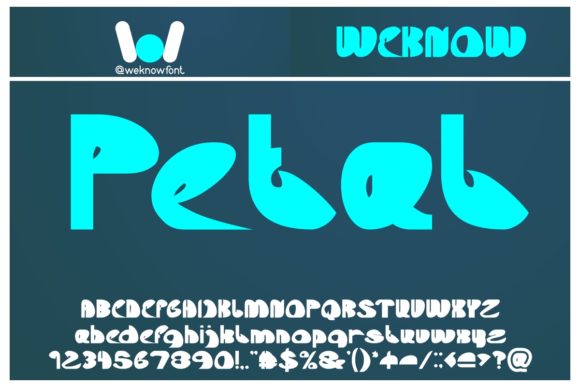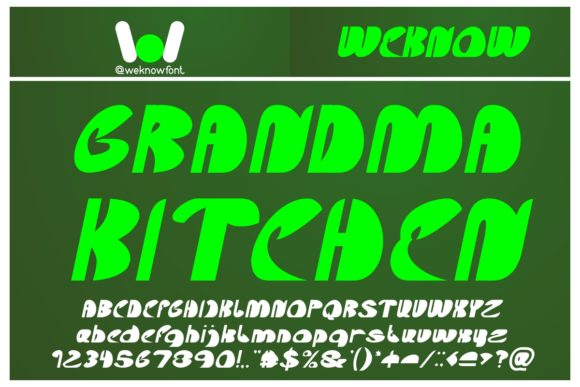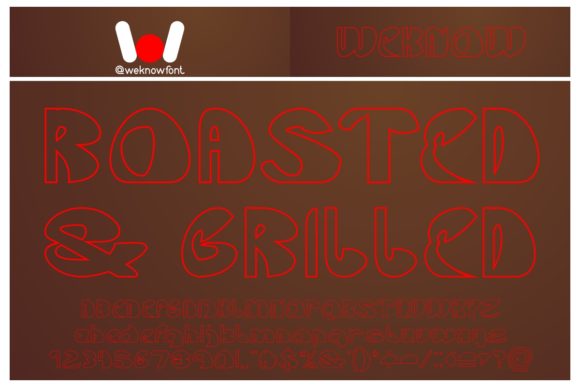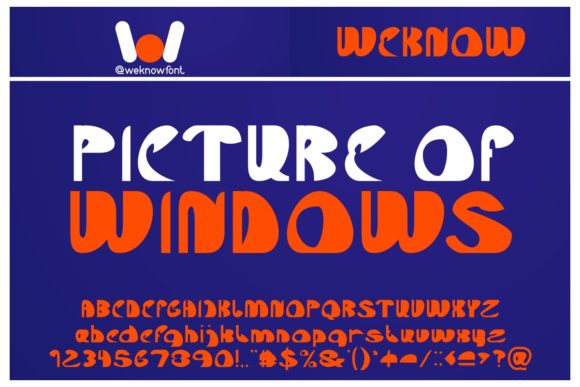
Introduction to Let’s Do It Again Font
Have you ever stared at a blank canvas, trying to spark that creative magic that makes your project truly shine? For designers, those moments are what make all the hard work worth it. Sometimes, all it takes is the right design resource to bring your vision to life.
Enter the Let’s Do It Again Font, a fun, cartoon-like display font that’s perfect for adding a touch of whimsy to your posters, titles, or headlines. With its high-quality design and transparent background, this font is a valuable addition to any designer’s toolkit. Whether you’re working on a free download or a paid project, the Let’s Do It Again Font is sure to bring a smile to your face and a boost to your creative project.
Key Features of Let’s Do It Again Font
- Unique, hand-drawn design with a playful and energetic feel, perfect for creative projects.
- High-quality font with transparent background, ideal for use in digital and print designs.
- Perfect for use in logos, typography, and other design elements, adding a touch of personality to any creative project.
Honest Review: Let’s Do It Again Font
I recently stumbled upon the Let’s Do It Again Font and was excited to give it a try. As a designer, I’m always on the lookout for new design resources to enhance my creative projects.
- The font is incredibly versatile and can be used for a variety of projects, from posters to logos.
- The high quality design ensures that the font looks great on both digital and print materials.
- The transparent background allows for easy layering and composition.
- The font is not suitable for very small text sizes, as it may become difficult to read.
- The font does not come with a bold or italic version, which may limit its use in certain contexts.
Overall, I’m impressed with the Let’s Do It Again Font. While it has some limitations, its versatility and high quality make it a valuable resource for any designer working on a creative project. I would definitely recommend it to anyone looking for a reliable design font.
Use the Let’s Do It Again Font on a transparent background to add a professional touch to your designs. Experiment with different font sizes and colors to create visually appealing designs.
The Let’s Do It Again Font is ideal for use in creative projects such as posters, flyers, and social media graphics. It’s also great for use in presentations and documents where a high-quality font is required.